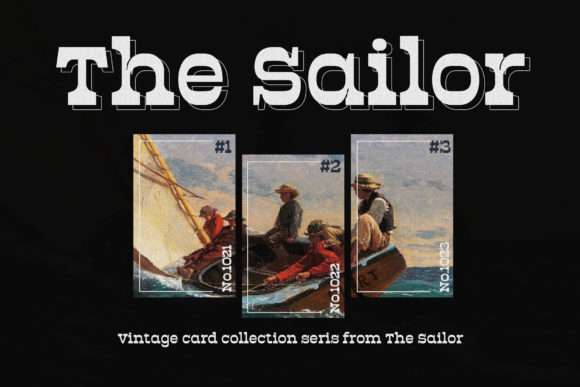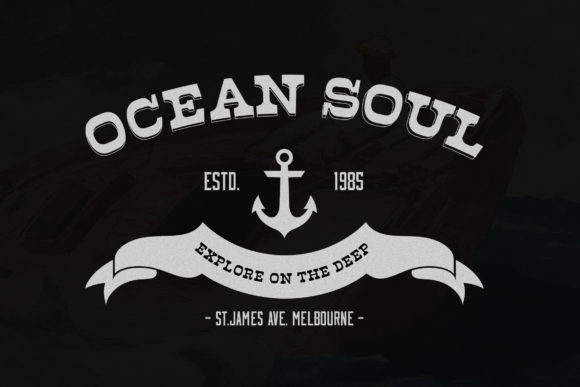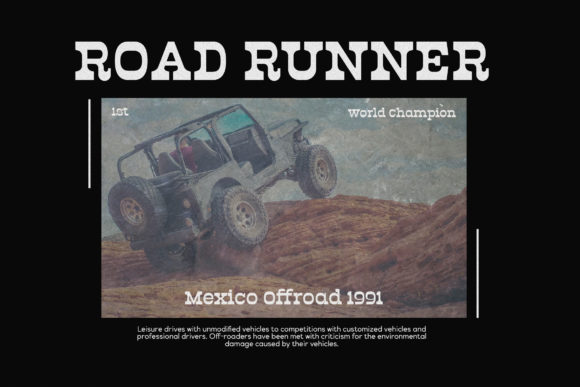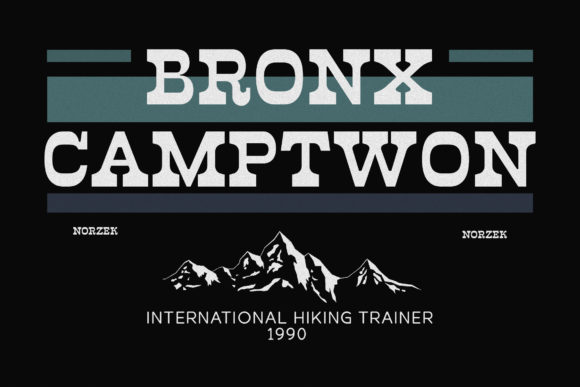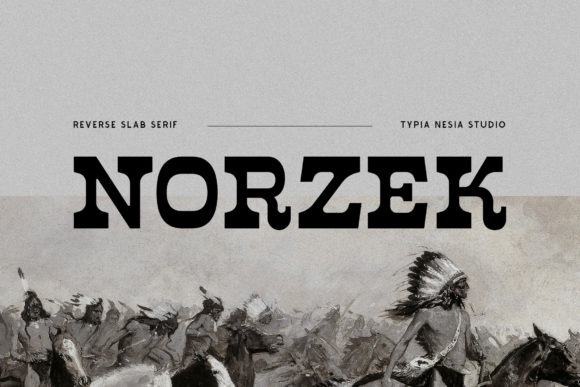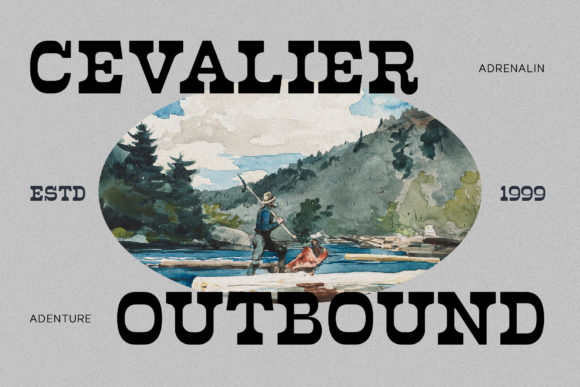
Introduction to Norzek Font
Norzek is a cool, bold and western looking display font.
Add this font to your most creative ideas, and notice how it makes them stand out .
Key Features of Norzek Font
Why Choose Norzek Font?